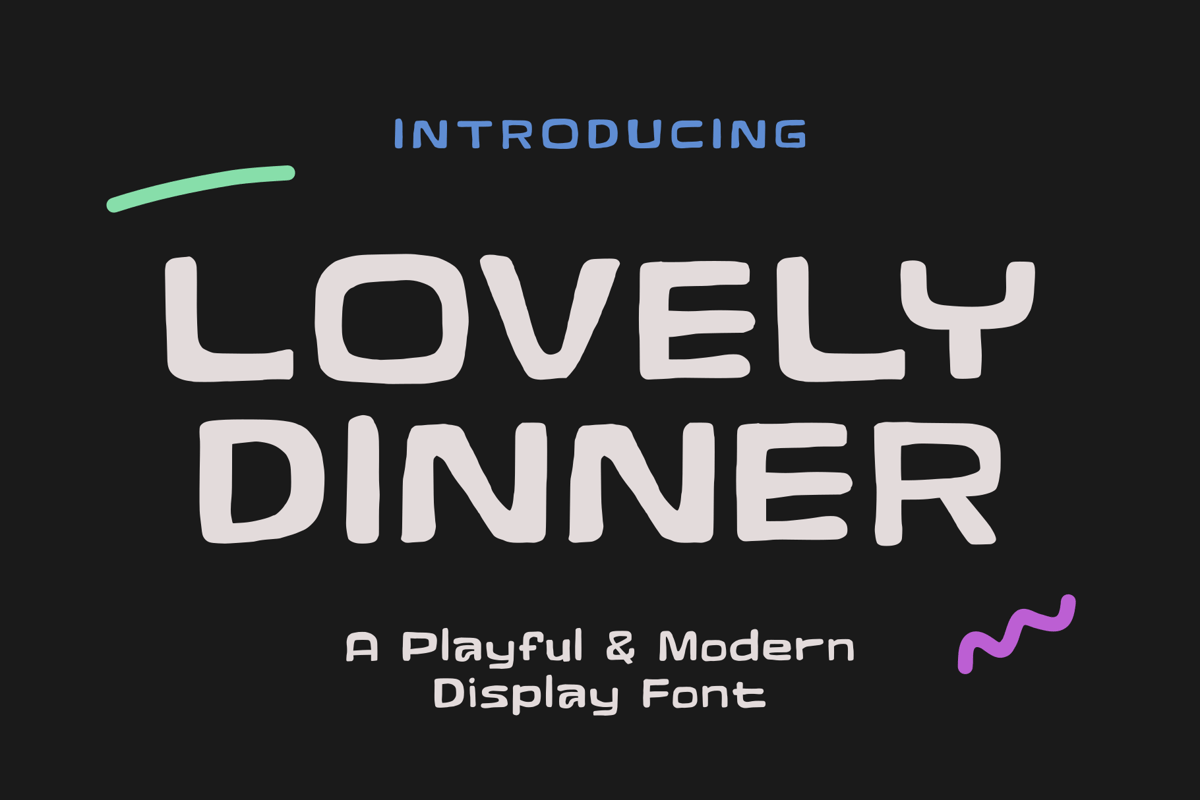
Free Lovely Dinner - Playful & Modern Display Font
Bold, playful, and full of personality — Lovely Dinner is the display font your designs have been waiting for.
Lovely Dinner is a unique modern display typeface built to give your creative work a fresh, fun, and eye-catching edge. Smooth, clean letterforms carry a subtle handcrafted touch, adding instant charm and character to any layout.
This typeface is a perfect fit for:
- Food & beverage branding — menus, packaging, cafes, and restaurants
- Posters and event banners
- Social media graphics and quote cards
- Merchandise, t-shirts, and stickers
- Packaging and product labels
- Modern logos and brand identities
With its versatile, clean style, Lovely Dinner gives you the typographic flexibility to create memorable designs with ease — across both print and digital formats.